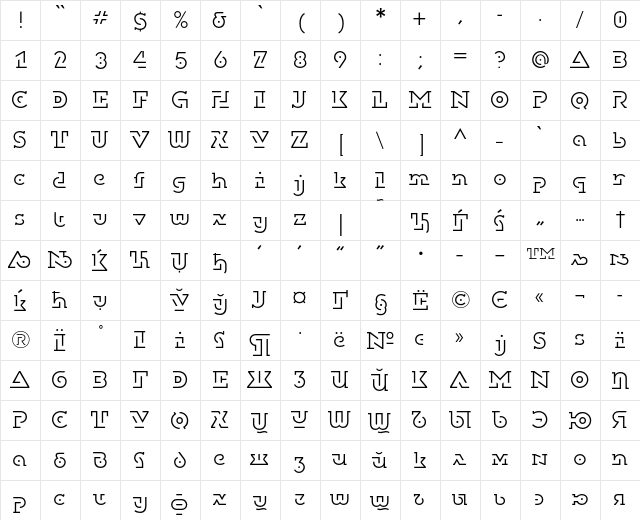
DublonBrusLightC Regular Font Preview
DublonBrusLightC Regular
Design Context for DublonBrusLightC Typeface
DublonBrusLightC is a composed and adaptable typeface that performs quietly and consistently across a wide range of design contexts. The delicate stroke weight brings airiness and refinement to layouts.